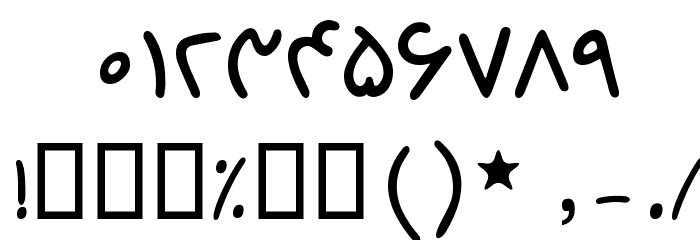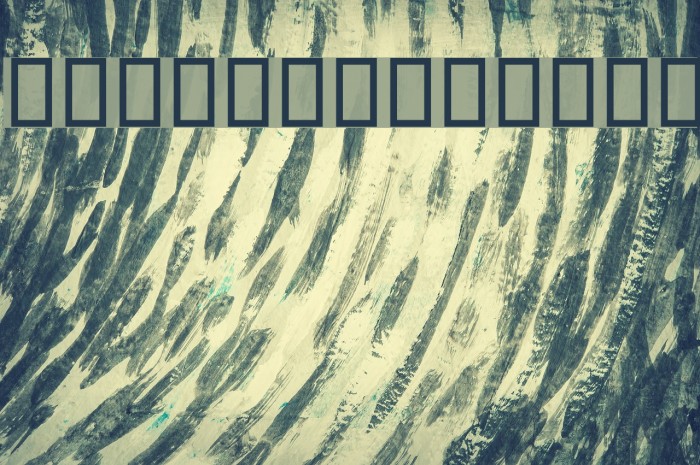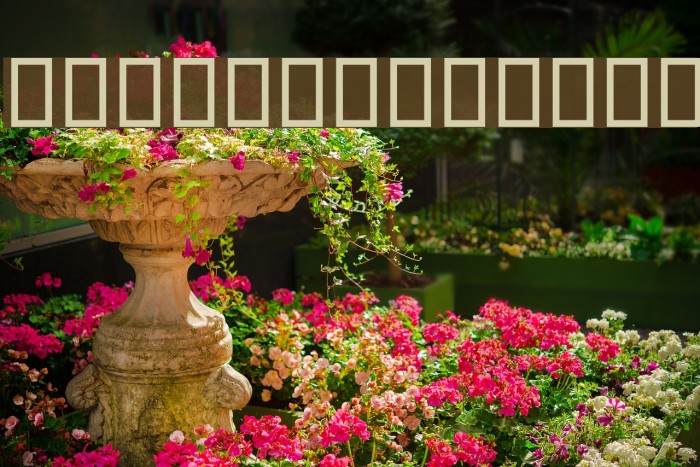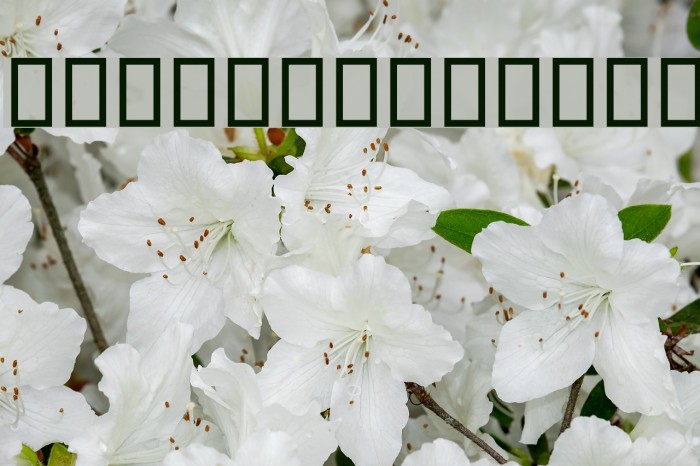
Destkhat Boy Black Font
This font features a playful and casual handwritten style, characterized by its smooth, flowing curves and slightly irregular letterforms. The strokes are consistent in thickness, giving it a uniform appearance that enhances readability while maintaining a personal touch. The numbers and special characters follow the same style, ensuring a cohesive look across all elements. The font's informal nature makes it suitable for projects that require a friendly and approachable feel.
A playful, casual handwritten font with smooth, flowing curves.
- Proposed Projects: Ideal for greeting cards, children's books, personal blogs, and informal branding.
- Overall Style: Casual
- Use Case: Logos, Informal text, Greeting cards